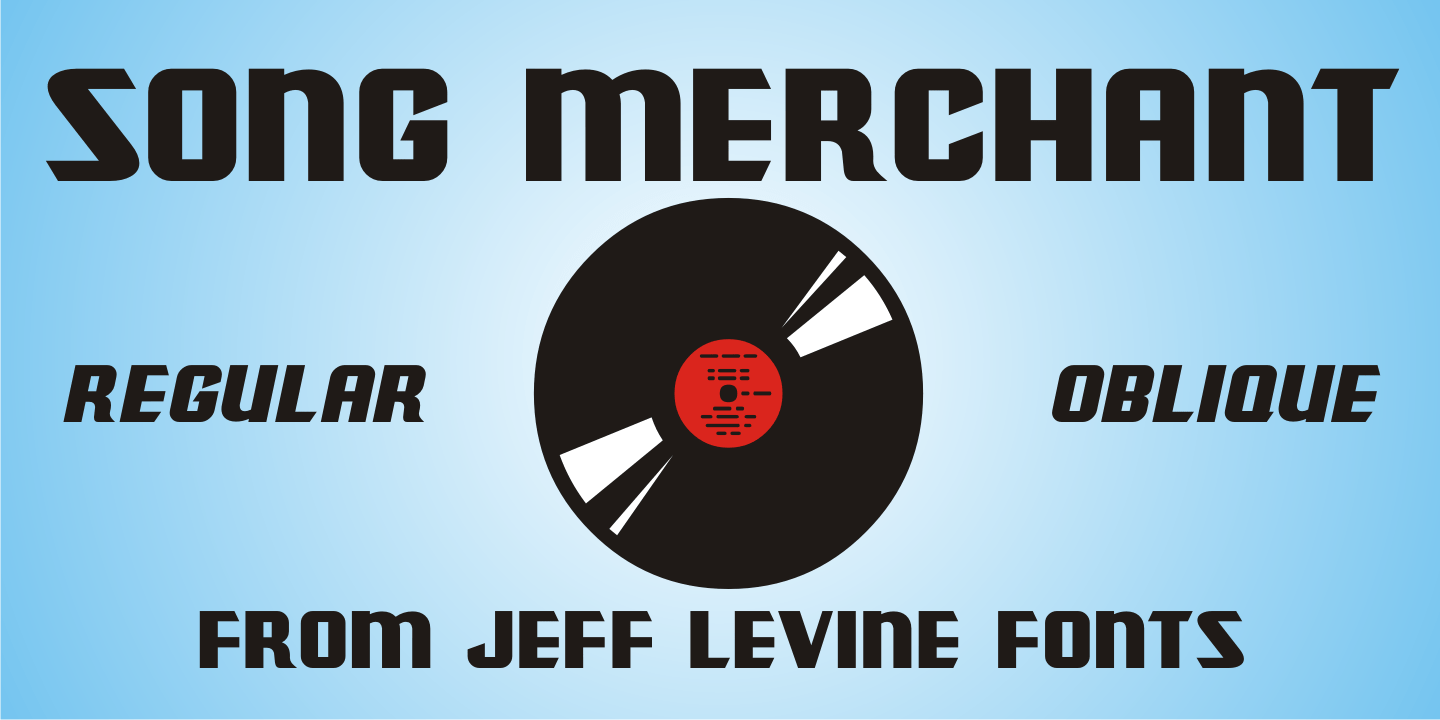
Song Merchant
Although the early 1900s through the 1920s seemed to be the 'Golden Age' of ridiculously long novelty song titles, it appears that even the decade of the 1940s had its fair share as well.
Song Merchant JNL was modeled from the hand lettered [but exhausting] title of the sheet music for 'Princess Poo-Poo-Ly Has Plenty Pa-Pa-Ya (and she Loves to Give it Away)'.
Despite the obvious double-entendre inferences of the title, the square block letters with rounded corners make for a useful headline font (even if the source material it was drawn from is quite forgettable).
Available in regular and oblique versions.